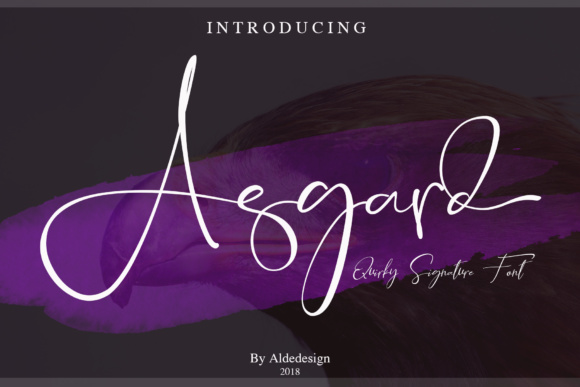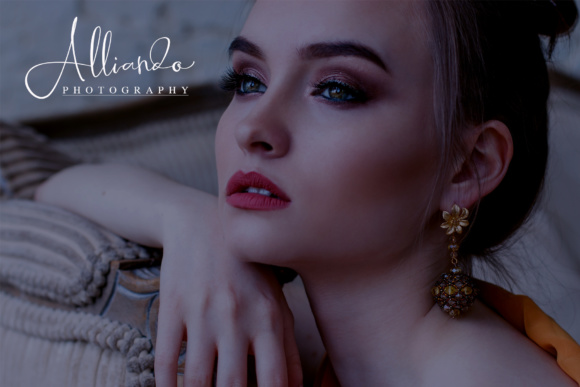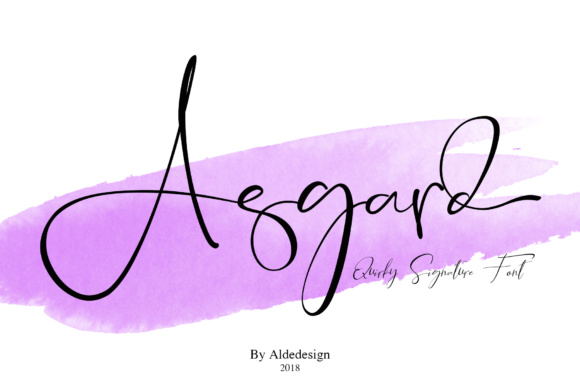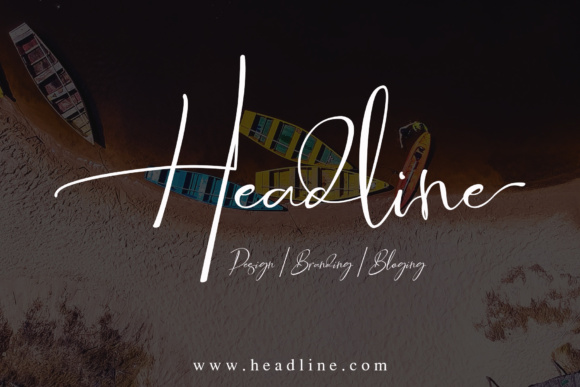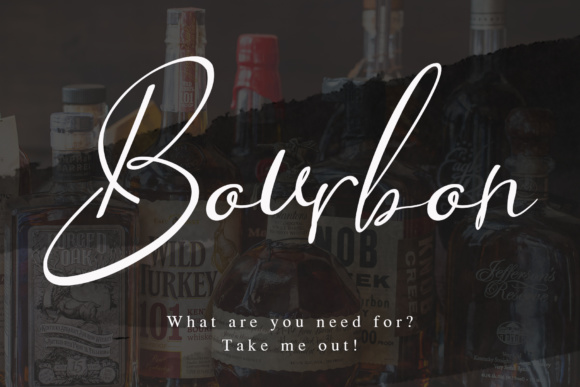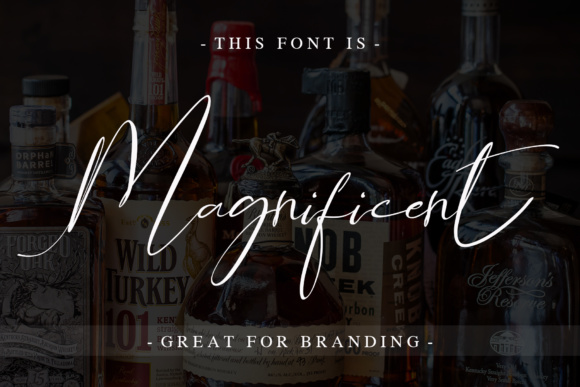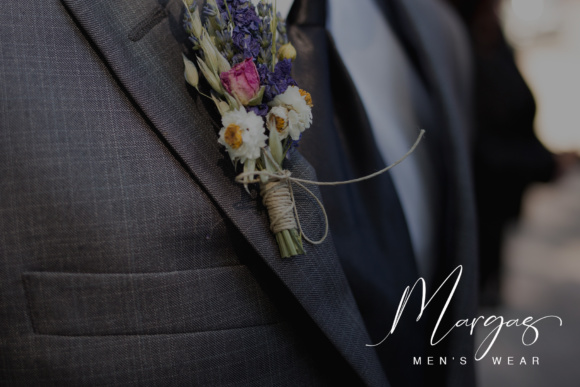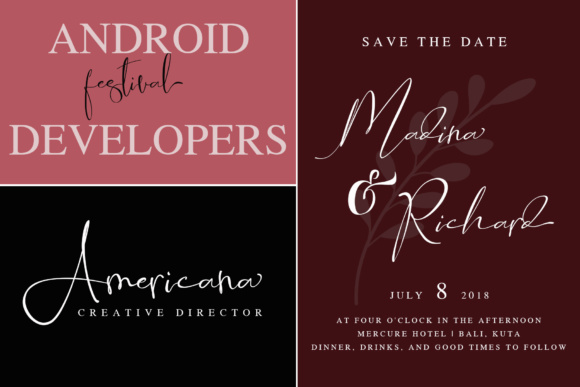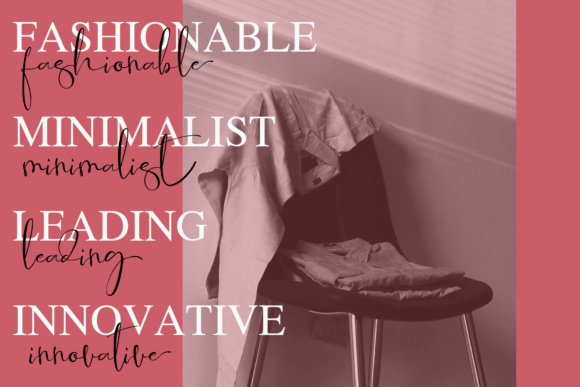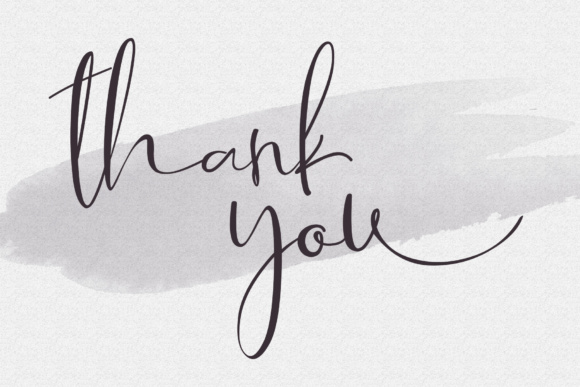
Asgard Font
About Asgard Font
Asgard is a stunning signature font, perfect for displays and fashionable designs. This script font works well in editorial works, and can add a personal touch to your projects.